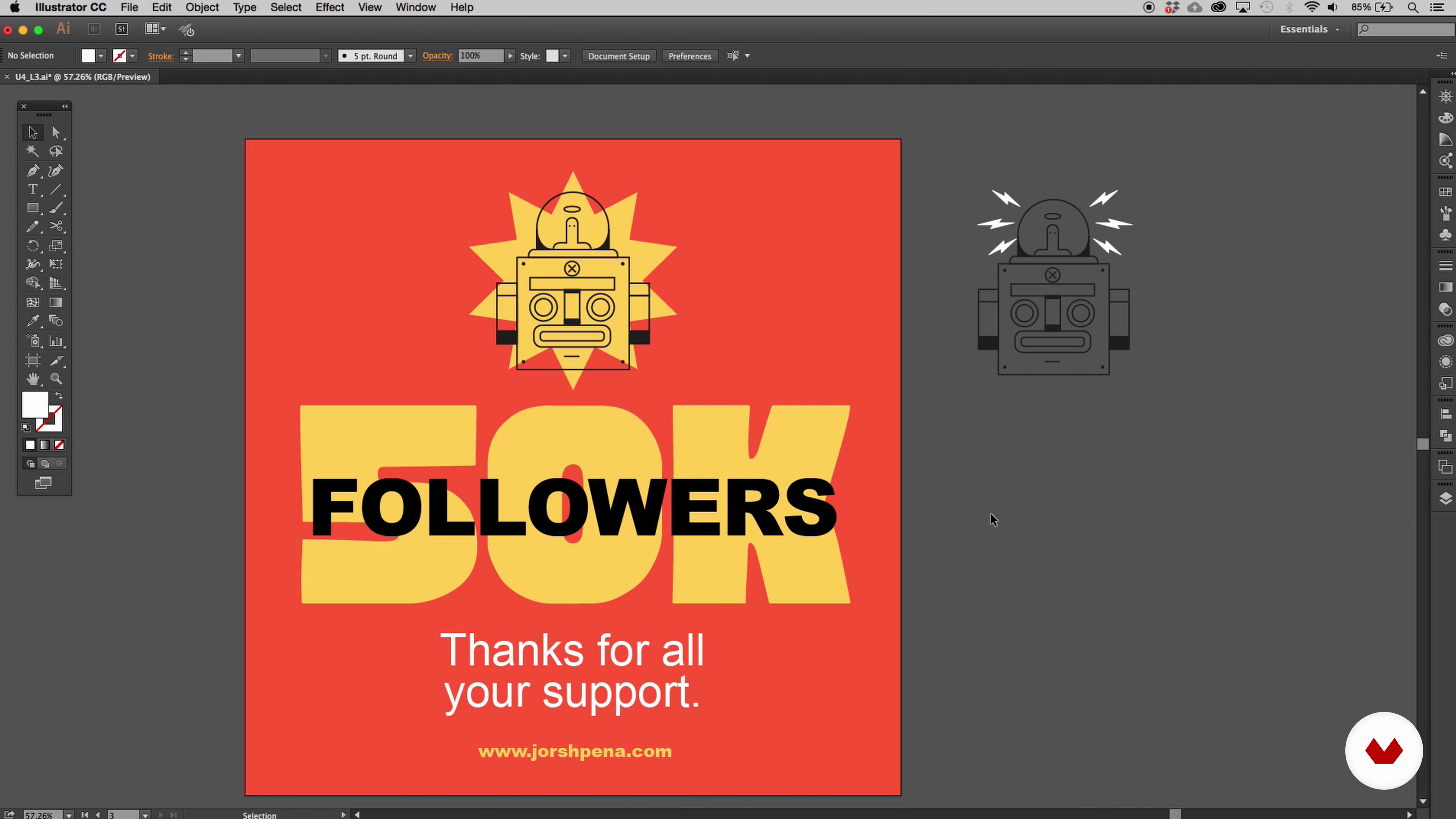
Font Selection
About the video: Font Selection
“I'm going to show you how text can become a graphic tool for your designs. You will also learn how to use effects that will help you create more interesting headlines. ”
“Font Selection In this lesson, I'll to show you can select different fonts to give the right message on your design. Before we get started, I'm going to tell you that you need to be sure that you clearly know which is the purpose of your asset. This will be very helpful to find the correct tone to communicate. If you want to share some news, if you want to communicate something very important, if you want to make an announcement, you can define this with your text by itself. This is why it will be very helpful if you have this in mind. This is something generic because of the constr...”